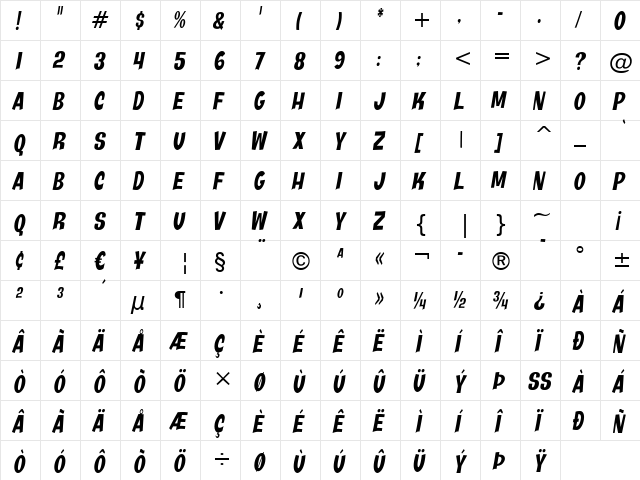
Java Kick BTN Cond Oblique
Design Context for Java Kick BTN Cond Typeface
Java Kick BTN Cond is a composed and adaptable typeface that performs quietly and consistently across a wide range of design contexts. The dynamic lean of this cut emphasises speed and emphasis in any layout. Its narrow stance lets it pack a punch even in space-constrained designs.
Pro Tip: Use Java Kick BTN Cond for emphasis, pull quotes, and subheadings where its slanted energy can add rhythm to the layout.